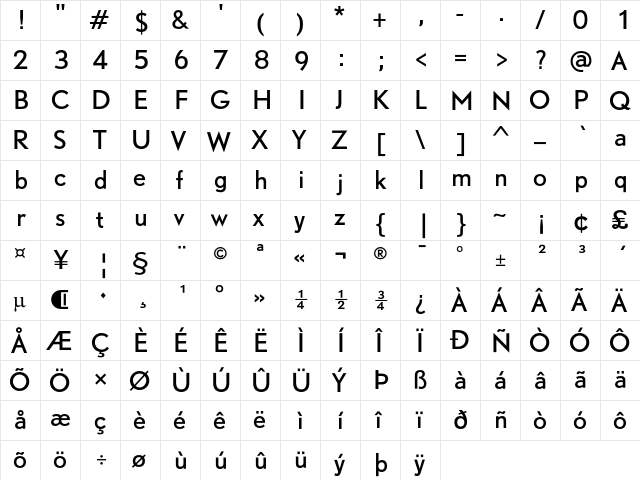
DTL Nobel T Regular
Design Context for DTL Nobel Typeface
DTL Nobel is a composed and adaptable typeface that performs quietly and consistently across a wide range of design contexts.
Pro Tip: Use DTL Nobel in both headline and body roles to test its range before committing to a single application.